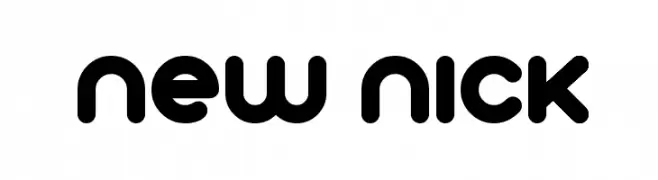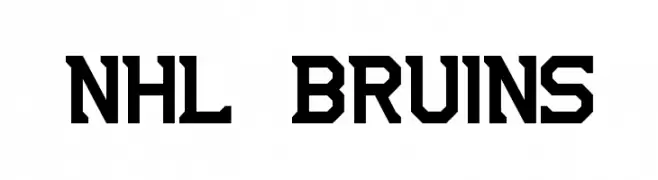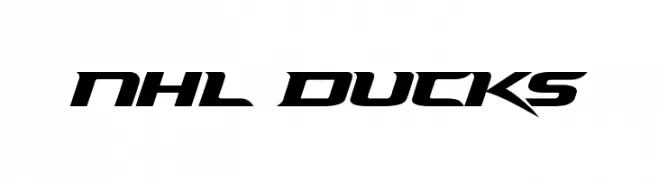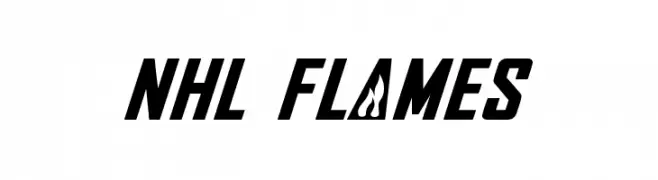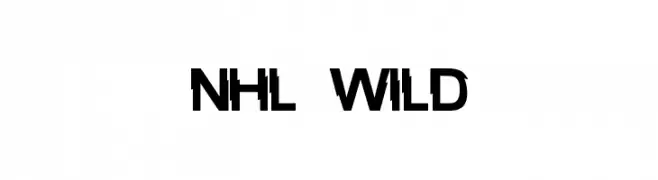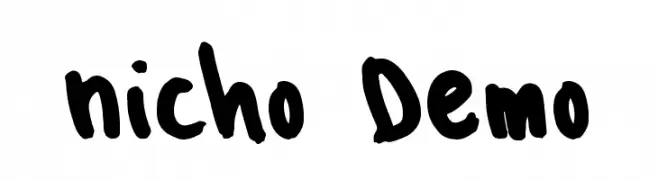
A bold, geometric font with a modern and futuristic style.
A bold, geometric font with a strong, industrial style.
A bold, angular font with a sporty, dynamic style.
Bold, italicized font with a dynamic and modern style.
A bold, geometric font with sharp angles and a modern aesthetic.
A bold, geometric font with a modern and impactful style.
Cartoonish, gangster-themed illustrated character font.
A playful, bold handwritten font with rounded strokes and a casual style.